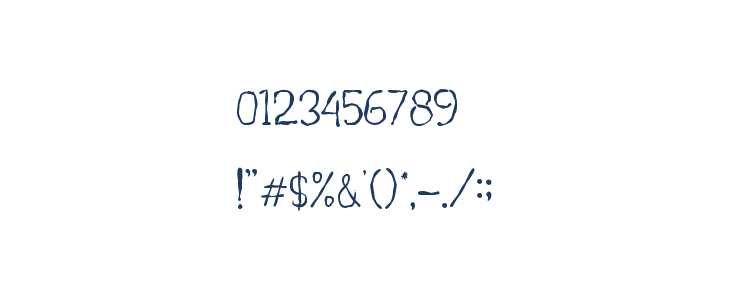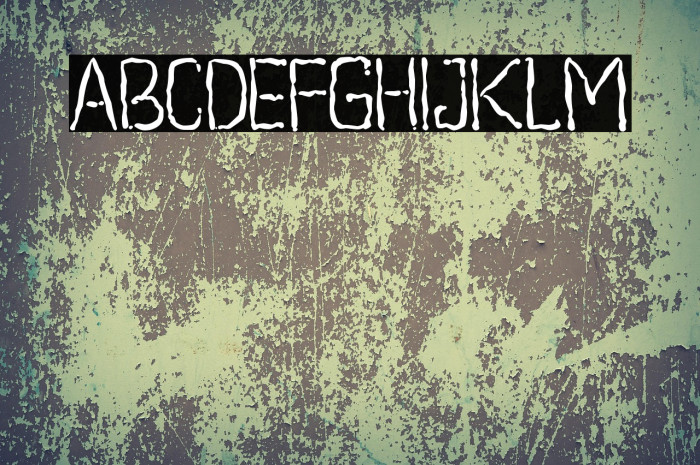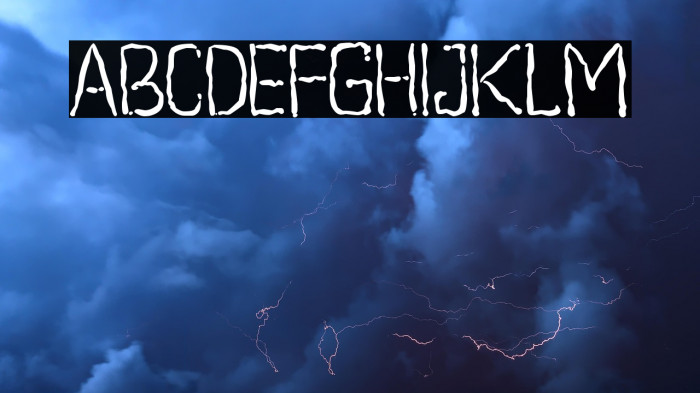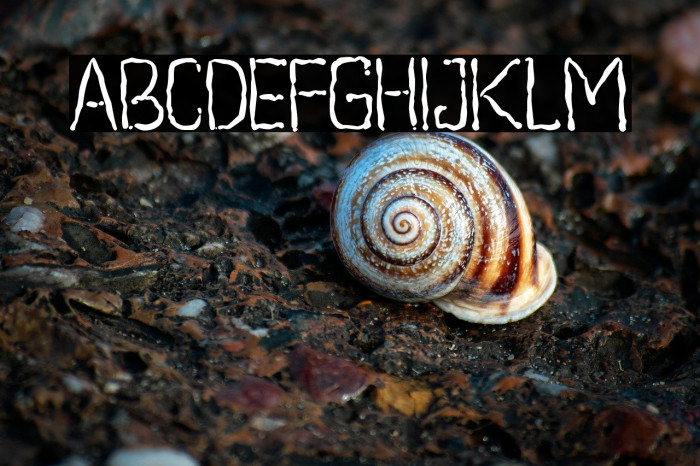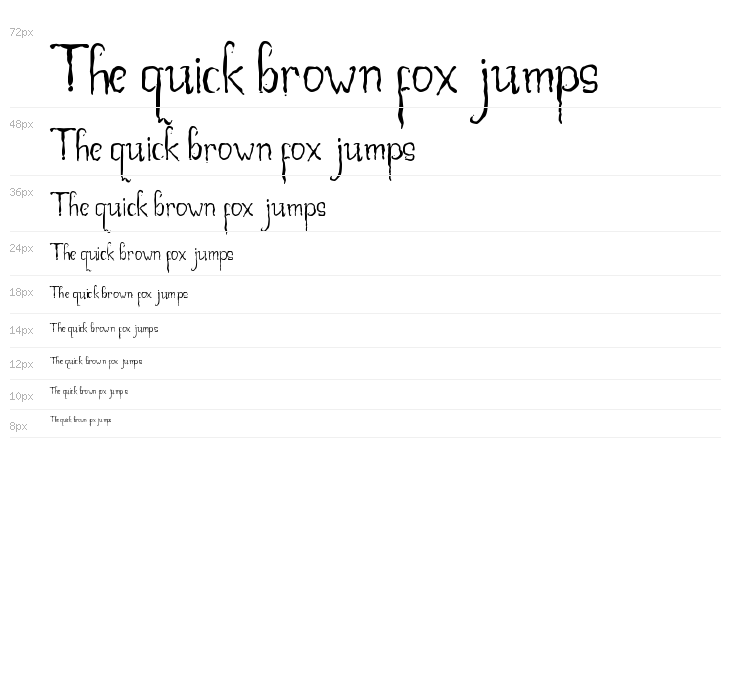
Beegal Font
Beegal Description
This font features a unique, hand-drawn aesthetic with irregular, organic lines that give it a rustic and artistic feel. The characters are slightly uneven, adding to the handcrafted appearance. The uppercase and lowercase letters maintain a consistent style, with a playful yet sophisticated look. Numbers and special characters are designed to match the overall theme, making this font versatile for creative projects. The strokes vary in thickness, providing a dynamic and textured appearance that stands out.
| Overall Style | Artistic, Rustic |
| Use Case | Logos, Posters, Invitations |
| Proposed Projects | Ideal for artistic projects, invitations, posters, and branding that require a handcrafted touch. |